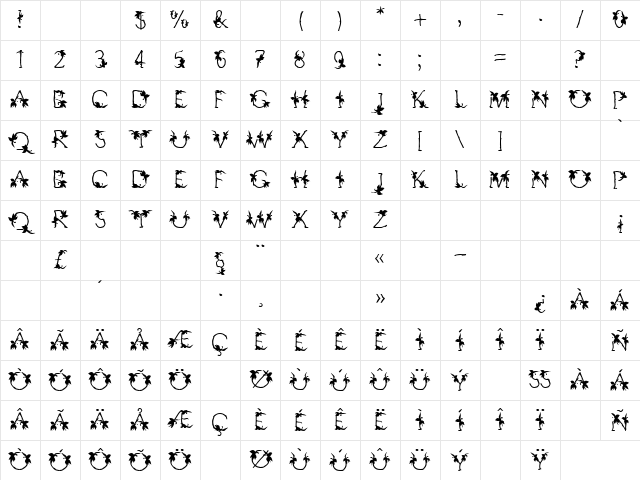
LTSupatropic Regular Free Font
LTSupatropic Regular
Design Context for LTSupatropic
LTSupatropic is a composed and adaptable typeface that performs quietly and consistently across a wide range of design contexts.